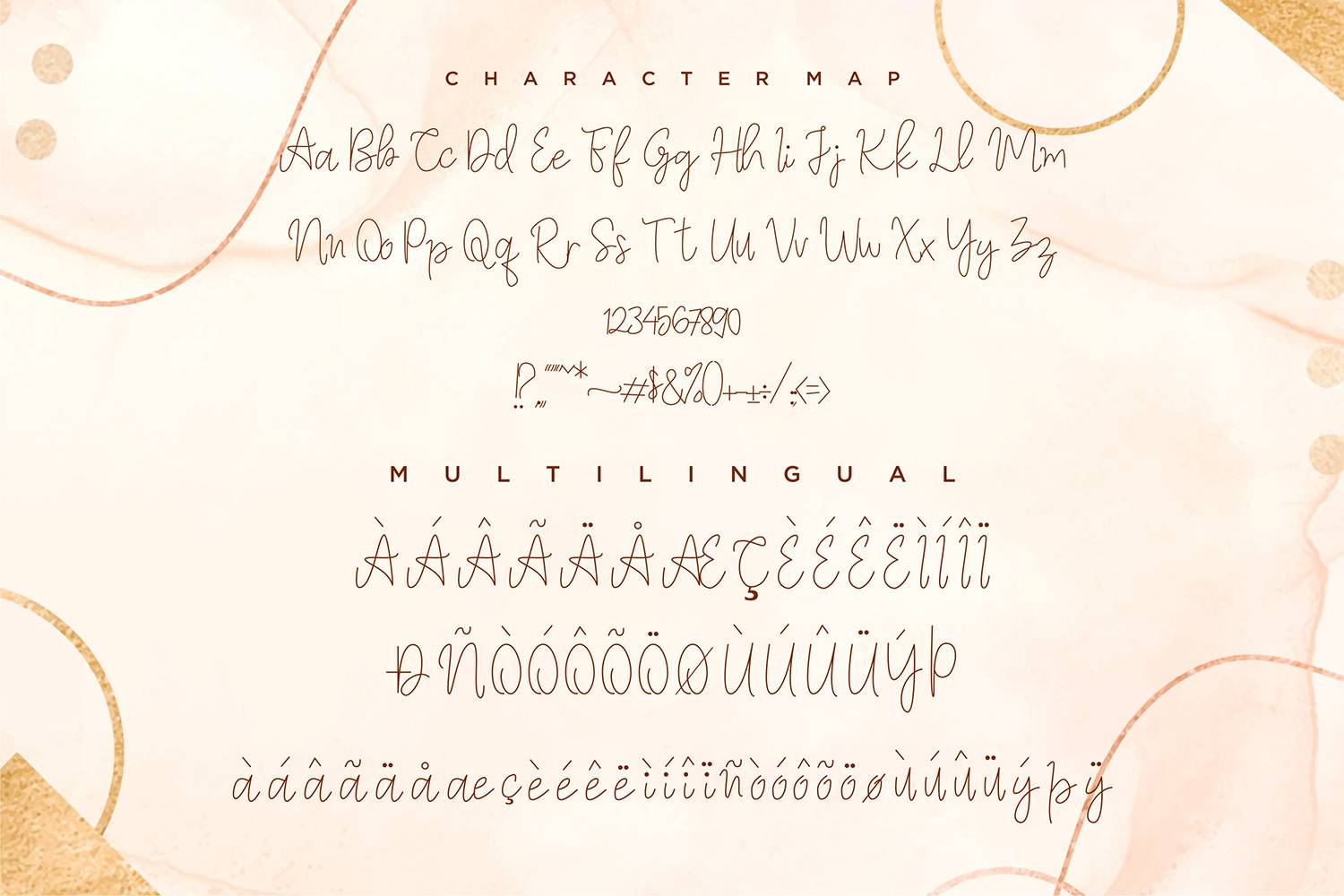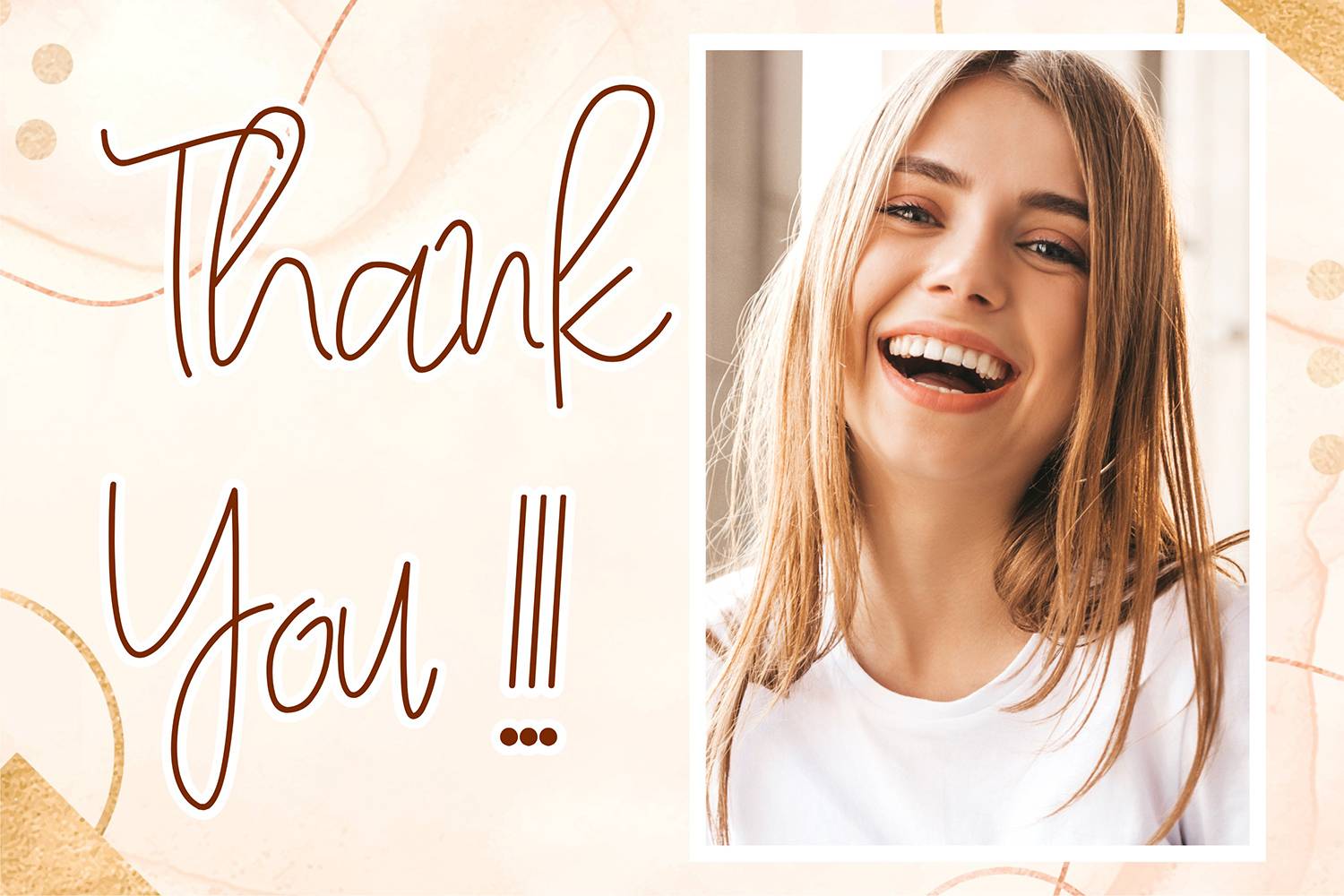
Delisha is a delicate, handwritten script font characterized by its thin strokes and airy, flowing letterforms. It conveys a light, elegant, and personal feel, making it ideal for creative projects, invitations, branding, and casual yet refined designs that seek a warm, approachable touch. Its slender, whimsical style works best in headlines and decorative uses rather than body text.
Delisha Font
About Delisha Font